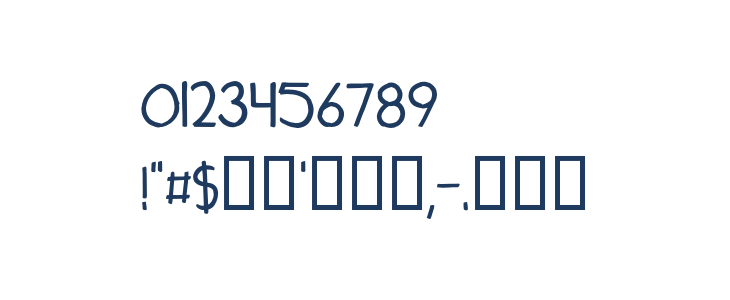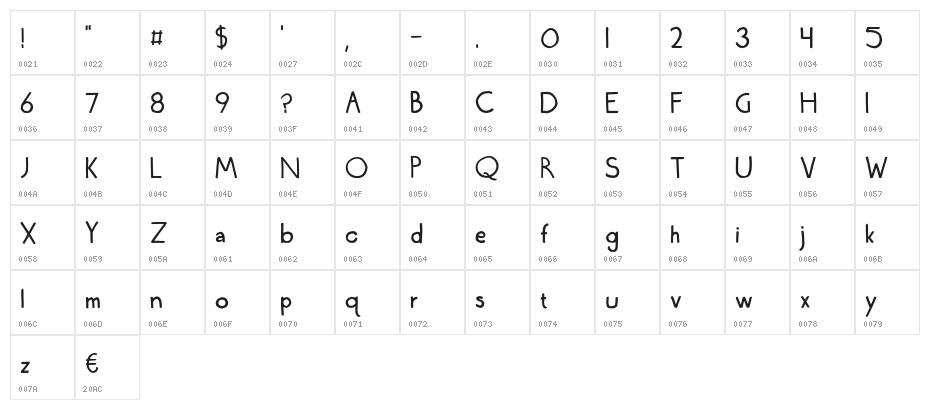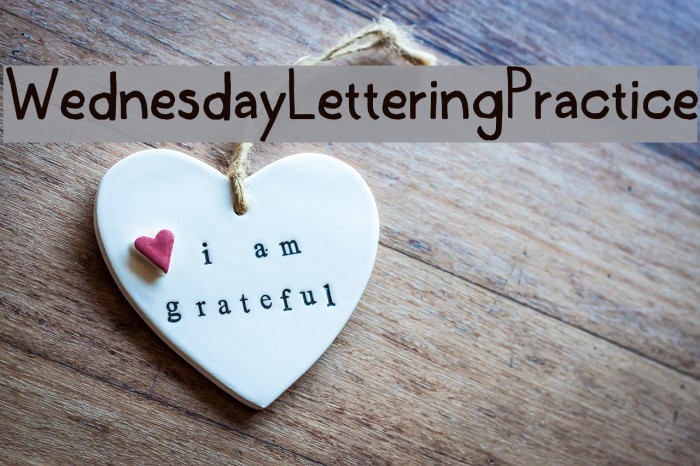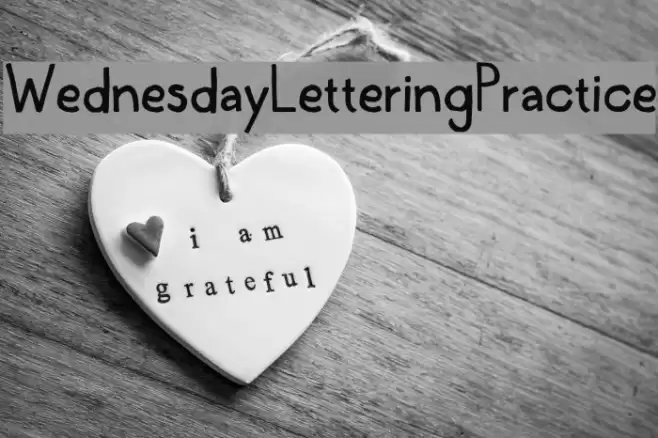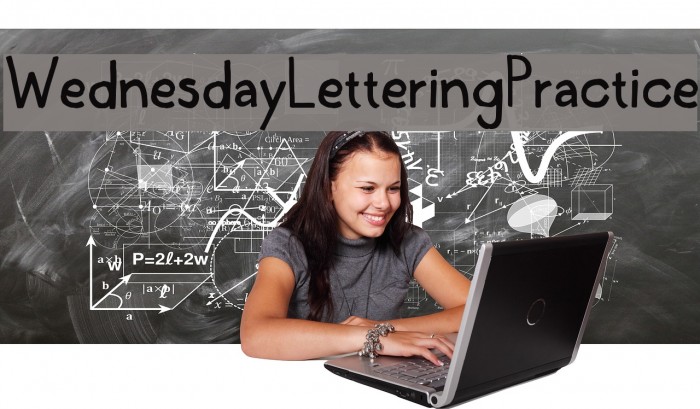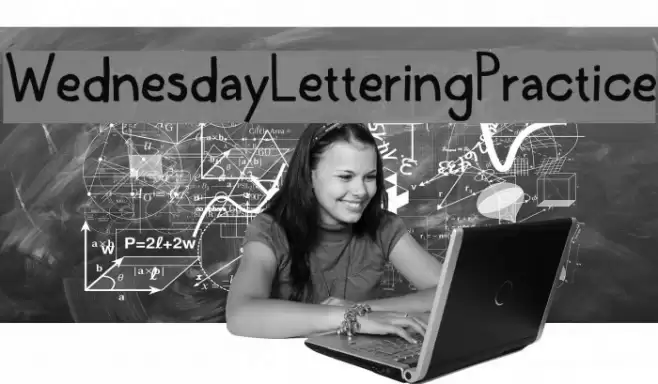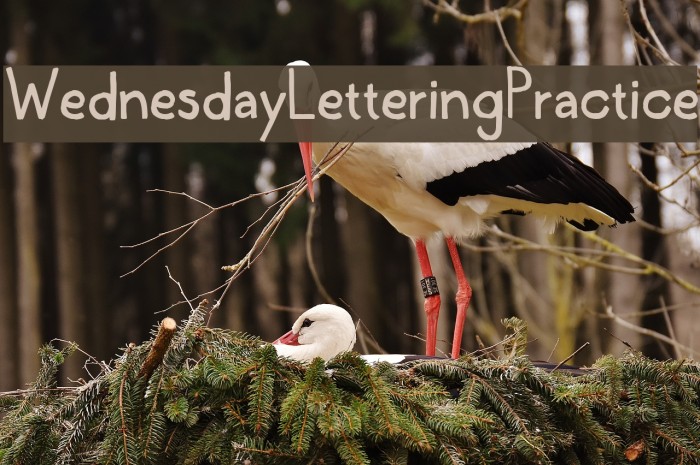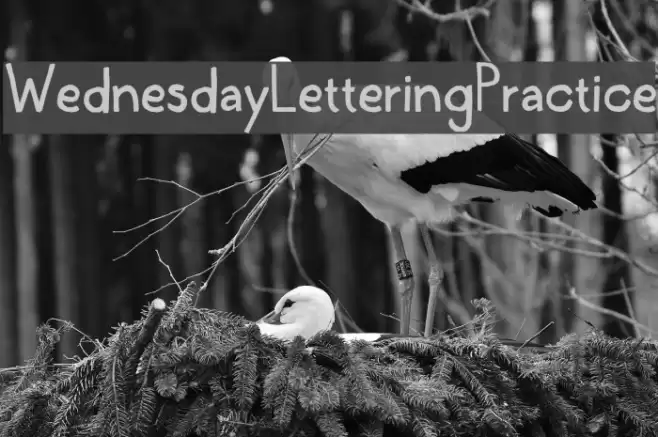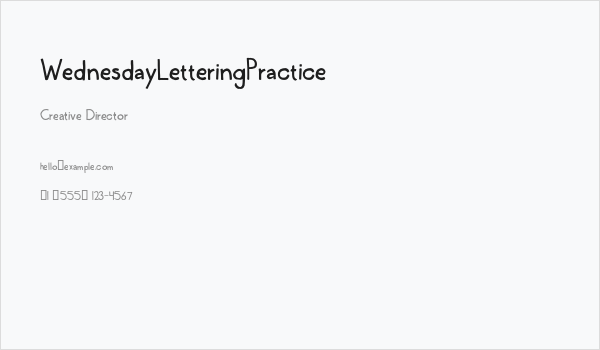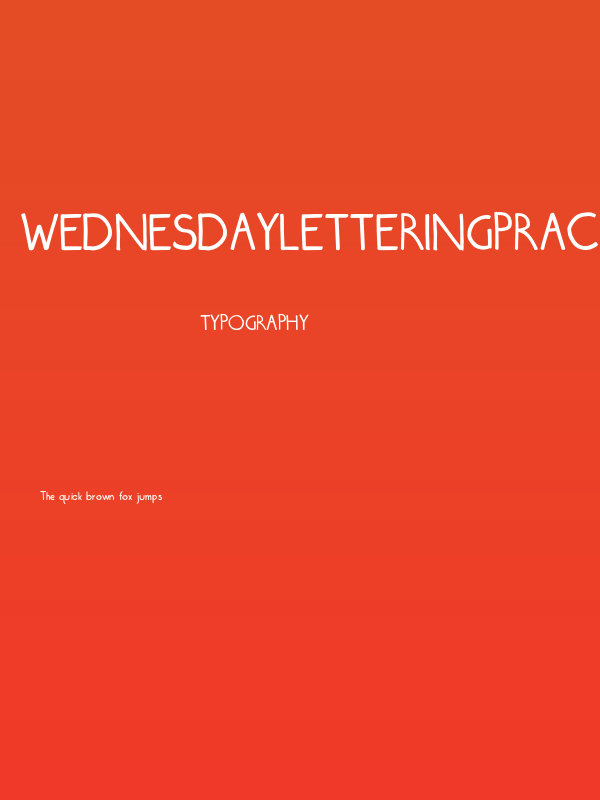
WednesdayLetteringPractice Font
WednesdayLetteringPractice Description
This font features a playful and informal style, characterized by its hand-drawn appearance. The letters are slightly irregular, giving it a whimsical and casual feel. The uppercase letters are bold and rounded, while the lowercase letters maintain a consistent flow with a slight slant. The numbers are clear and easy to read, matching the overall playful aesthetic. Special characters are included, maintaining the same hand-drawn style. The font's unique charm makes it suitable for creative and informal projects.
| Proposed Projects | Ideal for children's books, greeting cards, playful branding, and casual invitations. |